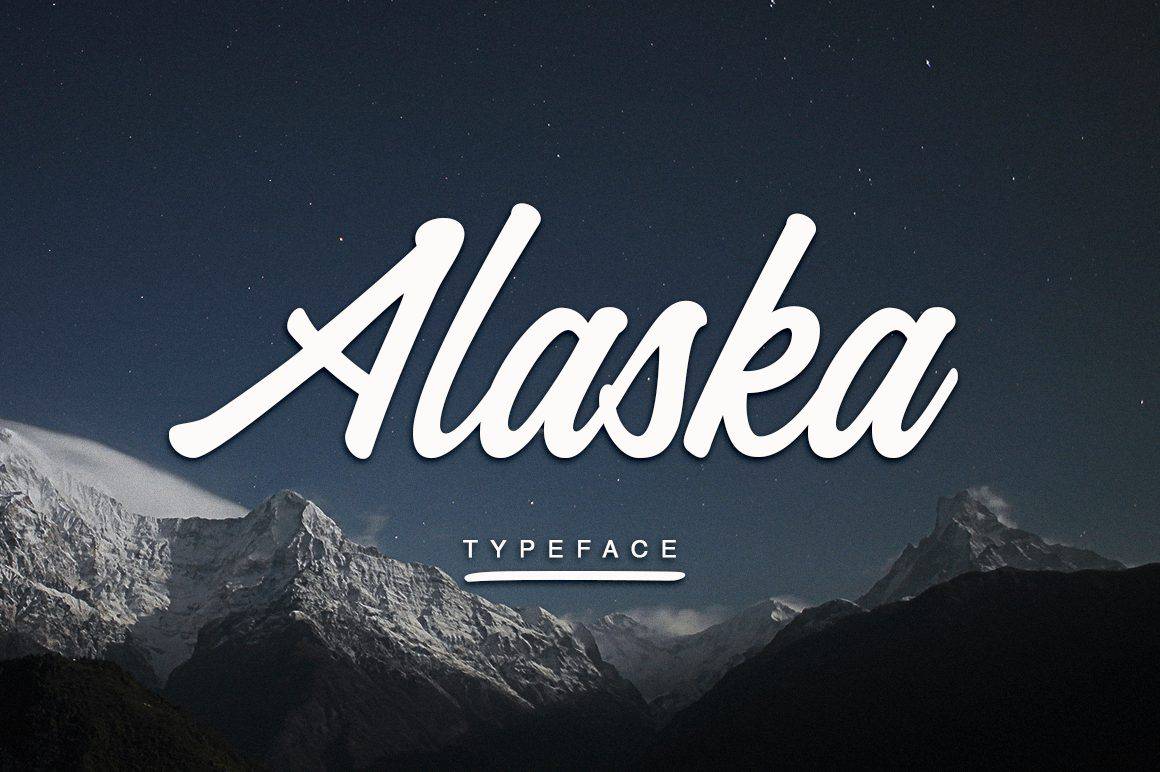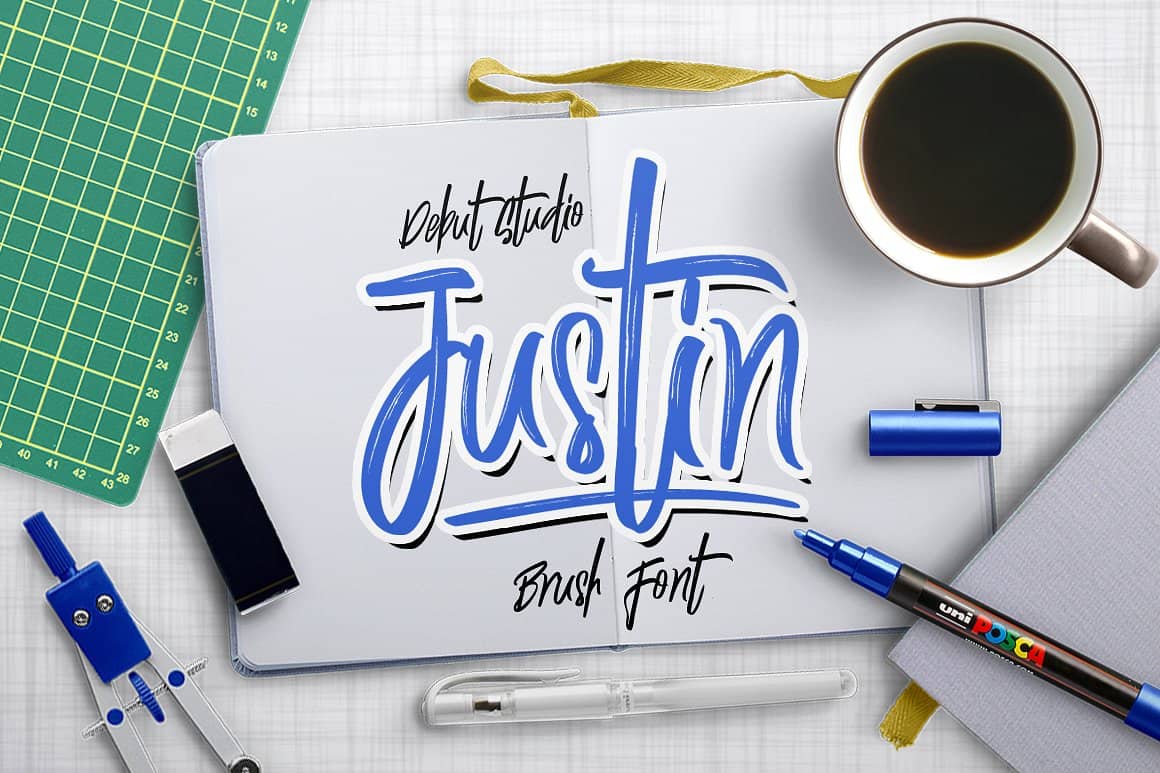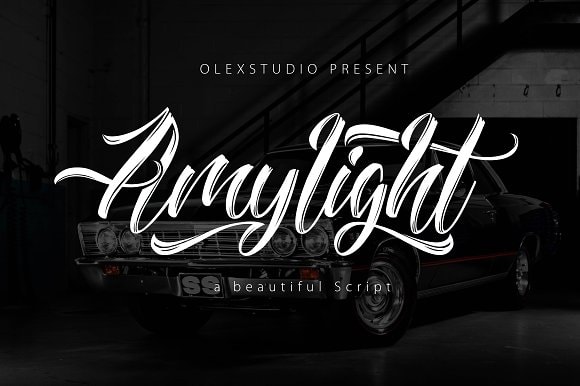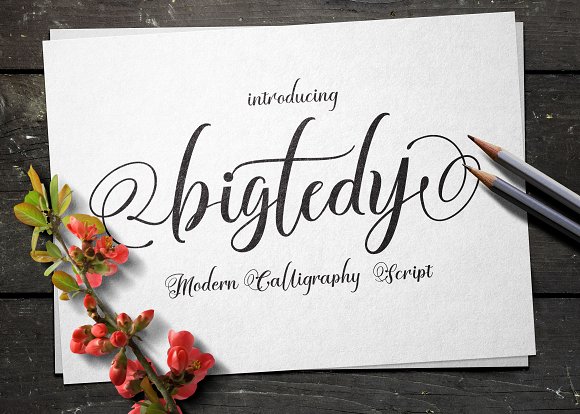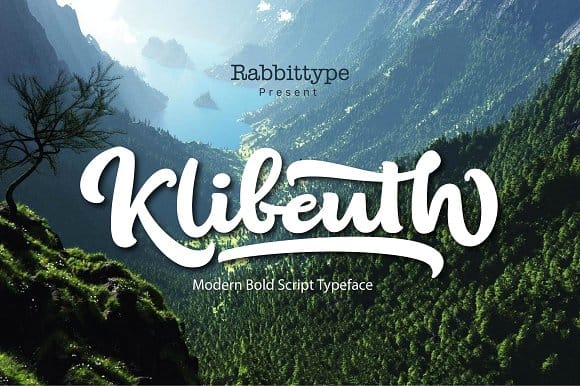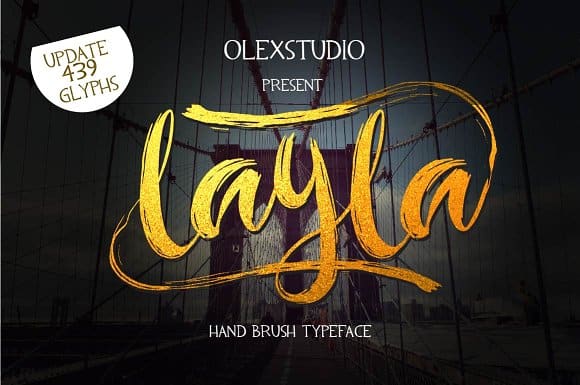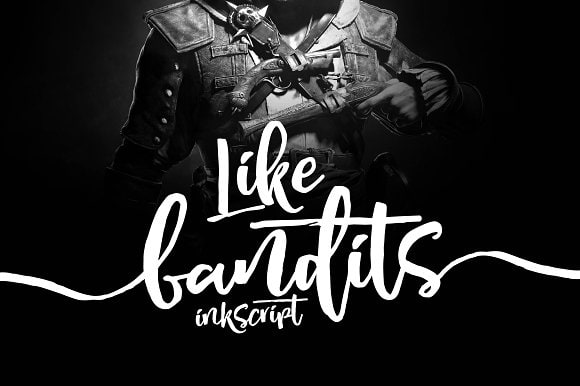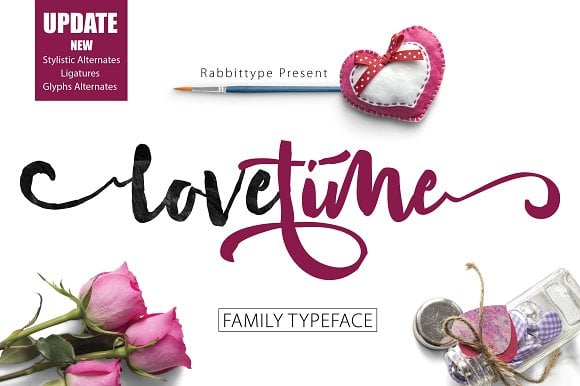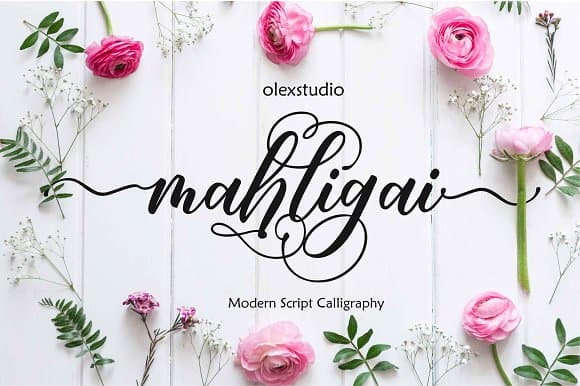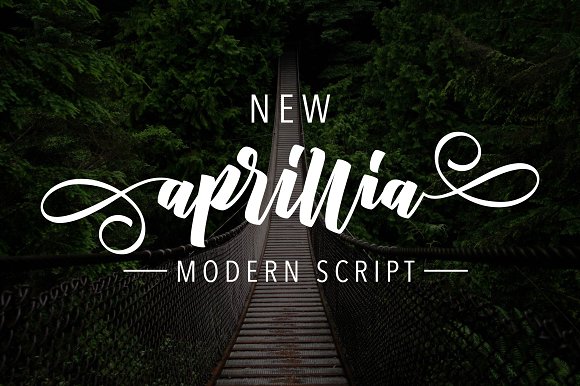
1. Alaska Font
Alaska is a bold, versatile font. It’s fluid and very easy to read, giving you loads of freedom when designing your next project.
2. Justin Brush Font
Justin is a handwritten calligraphy-style font. It’s completely made by hand using a brush pen.
3. Amylight Font
Amylight, a beautiful handwritten script. It’s a fluid font that works well in many different types of projects.
This professional looking font is easy to read and works well for marketing & branding as well as craft projects.
4. Bigtedy Font
Bigtedy, a beautiful handwritten script. It’s a fluid font that works well in many different types of projects.
This professional looking font is easy to read and works well for marketing & branding as well as craft projects.
5. Klibeuth Font
Klibeuth, a beautiful handwritten script. It’s a fluid font that works well in many different types of projects.
This professional looking font is easy to read and works well for marketing & branding as well as craft projects.
6. Layla Font
Layla, a beautiful handwritten script. It’s a fluid font that works well in many different types of projects.
This professional looking font is easy to read and works well for marketing & branding as well as craft projects.
7. Like Bandits Ink Font
Like Bandits Ink, a beautiful handwritten script. It’s a fluid font that works well in many different types of projects.
This professional looking font is easy to read and works well for marketing & branding as well as craft projects.
8. Love Time Font
Love Time, a beautiful handwritten script. It’s a fluid font that works well in many different types of projects.
This professional looking font is easy to read and works well for marketing & branding as well as craft projects.
9. Mahligai Font
Mahligai, a beautiful handwritten script. It’s a fluid font that works well in many different types of projects.
This professional looking font is easy to read and works well for marketing & branding as well as craft projects.
10. New Aprillia Font
New Aprillia, a beautiful handwritten script. It’s a fluid font that works well in many different types of projects.
This professional looking font is easy to read and works well for marketing & branding as well as craft projects.